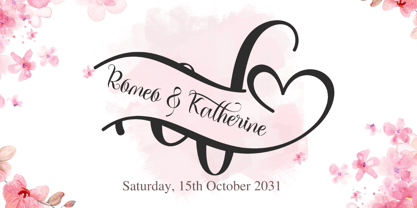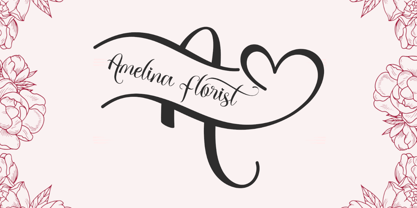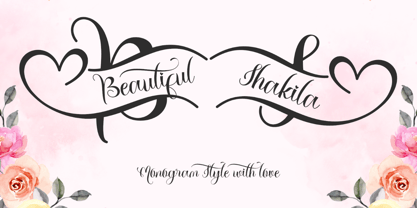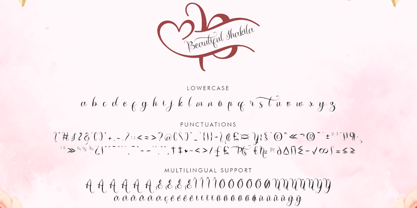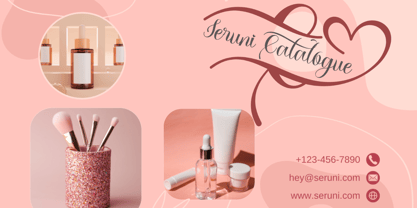
Beautiful Shakila Monogram
by Yoga Letter
The Beautiful Shakila Monogram Font Family was designed by Isroni Yoga Prasetya and published by Yoga Letter. Beautiful Shakila Monogram contains 2 styles and family package options. More about this family
"Beautiful Shakila Monogram" is a beautiful and elegant monogram font. It features monograms, uppercase and lowercase letters, numerals, punctuations, and multilingual support. It's perfect for Christmas, business branding, invitations, weddings, Halloween, fall, autumn, florists, engagements, photography, logos, stickers, posters, prints, and more.
Designers: Isroni Yoga Prasetya
Foundry: Yoga Letter